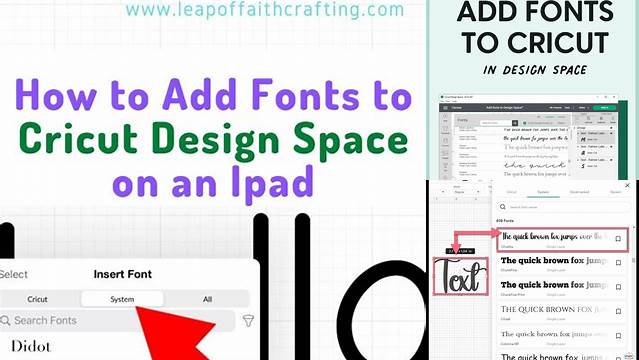
Upload Fonts To Cricut On IPad: Easy Guide
Hey crafters! Ever wondered how to spice up your Cricut projects on your iPad by using your own custom fonts? You're in the right place! This guide will walk you through the process of uploading fonts to Cricut Design Space on your iPad, step by step. We'll cover everything from finding and downloading fonts to installing them and using them in your projects. Let's get started and unleash your creativity!
1. Understanding Font Compatibility with Cricut Design Space on iPad
2. Finding and Downloading Fonts for Cricut on iPad
3. Installing Fonts on Your iPad for Cricut Design Space
4. Accessing Newly Installed Fonts in Cricut Design Space on iPad
Alright, you've installed your new font – time to use it! Open up Cricut Design Space on your iPad and start a new project or open an existing one. Add a text box, and then tap on the font dropdown menu. Your newly installed font should be in the list! If you don't see it right away, try closing and reopening Cricut Design Space. Sometimes it takes a refresh for the app to recognize the new font. If you still don't see it, double-check that the font is properly installed in your iPad's settings. Go to Settings > General > Profiles (if you see a Profiles section) or Settings > General > Fonts, and make sure the font is listed there. If it's not, you may need to reinstall it using your font installation app. Once you find your font in Cricut Design Space, you can use it just like any other font. Adjust the size, style, and color to fit your project's needs. Accessing and using your new fonts is a game-changer for customizing your designs and making them truly your own. Make sure to experiment with different fonts to find the perfect one for each project. The ability to use custom fonts really opens up a world of creative possibilities within Cricut Design Space.
5. Troubleshooting Font Issues in Cricut Design Space on iPad
Sometimes, things don't go as planned, and you might run into issues with your fonts in Cricut Design Space. Don't panic! Here are a few common problems and how to fix them. First, if the font doesn't appear in the font list, try restarting Cricut Design Space and your iPad. This often solves the problem. If the font appears but looks weird or distorted, it could be a compatibility issue. Try downloading a different version of the font or using a different font altogether. Also, make sure you're using the latest version of Cricut Design Space, as updates often include bug fixes and improvements. Another issue you might encounter is font licensing. If you're using a font for commercial purposes without a proper license, you could face legal consequences. Always double-check the font's license before using it in your projects. If all else fails, consult the Cricut Design Space help resources or reach out to their customer support for assistance. Troubleshooting font issues can be frustrating, but with a little patience and persistence, you can usually find a solution. Keeping your software up-to-date and understanding font licensing are proactive steps you can take to avoid these problems in the first place.
6. Managing Multiple Fonts on Your iPad for Cricut
If you're anything like me, you probably have a ton of fonts on your iPad. Managing them effectively is key to keeping things organized and preventing your font list from becoming a chaotic mess. One of the best ways to manage multiple fonts is to use a font management app like iFont or AnyFont. These apps allow you to easily install, uninstall, and organize your fonts. You can create font collections for different projects or themes, making it easier to find the perfect font when you need it. Another tip is to regularly review your font list and remove any fonts you no longer use. This will not only declutter your font list but also free up storage space on your iPad. Consider creating a backup of your fonts on iCloud or another cloud storage service in case something goes wrong. Effective font management can save you time and frustration in the long run. It also helps you maintain a consistent look and feel across your projects. With the right tools and strategies, managing multiple fonts on your iPad can be a breeze.
7. Best Font Combinations for Cricut Projects on iPad
Choosing the right font is essential, but combining fonts effectively can take your Cricut projects to the next level. Here are some tried-and-true font combinations that work well together. Pair a bold sans-serif font like Montserrat with a delicate script font like Brush Script MT for a modern and elegant look. For a more playful and whimsical design, try combining a rounded sans-serif font like Quicksand with a handwritten font like Amatic SC. If you're going for a classic and timeless feel, pair a serif font like Times New Roman with a simple sans-serif font like Arial. Remember, the key to successful font combinations is contrast. Choose fonts that complement each other but also have distinct differences in style and weight. Don't be afraid to experiment and try out different combinations until you find the perfect match for your project. Exploring different font pairings will help you create visually appealing and professional-looking designs. Font combinations are a great way to add depth and personality to your Cricut projects, making them stand out from the crowd.
8. Creating Custom Fonts for Cricut Design Space on iPad
Want to really stand out? Why not create your own custom fonts? While it might sound intimidating, it's actually quite achievable with the right tools. There are several apps available on the iPad that allow you to design and create your own fonts, such as Procreate and FontLab Pad. These apps offer a range of tools and features for drawing letters, adjusting spacing, and fine-tuning your font's overall look and feel. Once you've created your font, you can export it as a .OTF or .TTF file and install it on your iPad just like any other font. Creating your own custom fonts gives you complete control over your designs and allows you to express your unique style. It's a great way to add a personal touch to your Cricut projects and make them truly one-of-a-kind. While it takes time and effort, the end result is well worth it. Designing your own fonts opens up a whole new world of creative possibilities and allows you to push the boundaries of what's possible with Cricut Design Space.
9. Using Font Glyphs and Special Characters in Cricut Design Space on iPad
Font glyphs are special characters and alternate letterforms that are included in many fonts. These glyphs can add a touch of elegance and sophistication to your Cricut projects. To access font glyphs on your iPad, you'll need a font browser app like Character Map or Unicode Map. These apps allow you to view all the glyphs included in a font and copy them to your clipboard. Then, you can paste the glyph into your text in Cricut Design Space. Experimenting with font glyphs can help you create unique and eye-catching designs. Glyphs often include flourishes, swashes, and other decorative elements that can elevate your projects. Using glyphs and special characters is a simple yet effective way to add a touch of personality and flair to your Cricut creations. They can transform a plain design into something truly special and memorable.
10. Optimizing Text for Cutting with Cricut on iPad
When working with text in Cricut Design Space, it's important to optimize it for cutting. This means ensuring that your text is smooth, clean, and easy for your Cricut machine to cut. One of the best ways to optimize text is to use a font that is specifically designed for cutting. These fonts typically have thicker lines and fewer intricate details, making them easier to cut without tearing or fraying. Another tip is to weld any overlapping letters or shapes in your text. This will create a single, continuous shape that is easier to cut and weed. Also, be mindful of the size of your text. Smaller text can be more difficult to cut and may require a sharper blade or slower cutting speed. Optimizing text for cutting will help you achieve clean, precise cuts and ensure that your projects look their best. It's a crucial step in the design process that can significantly impact the final outcome.
11. Exploring Script Fonts for Elegant Cricut Projects
Script fonts are perfect for adding a touch of elegance and sophistication to your Cricut projects. These fonts mimic the look of handwriting and can create a beautiful, flowing effect. When choosing a script font, consider the overall style of your project. A formal script font like Edwardian Script ITC is ideal for wedding invitations or other upscale events. A more casual script font like Brush Script MT is perfect for everyday projects like greeting cards or gift tags. Experiment with different script fonts to find the perfect one for your project. Script fonts can be a bit more challenging to cut than other fonts, so be sure to optimize your text for cutting and use a sharp blade. Using script fonts is a great way to add a personal and artistic touch to your Cricut creations.
12. Using Bold Fonts for Impactful Cricut Designs
Bold fonts are a great choice for creating impactful and eye-catching Cricut designs. These fonts have thicker lines and a stronger presence, making them ideal for headlines, titles, and other elements that you want to stand out. When choosing a bold font, consider the overall tone of your project. A modern bold font like Montserrat Bold is perfect for contemporary designs. A more traditional bold font like Impact is great for creating a sense of authority and importance. Be careful not to overuse bold fonts, as they can quickly become overwhelming. Use them strategically to highlight key elements and create visual interest. Using bold fonts effectively can help you create designs that are both visually appealing and easy to read.
13. Incorporating Serif Fonts for Classic Cricut Projects
Serif fonts are characterized by the small decorative strokes (serifs) at the end of each letter. These fonts are often associated with traditional and formal designs, making them a great choice for classic Cricut projects. When choosing a serif font, consider the overall style of your project. A classic serif font like Times New Roman is perfect for creating a sense of timelessness. A more modern serif font like Playfair Display is great for adding a touch of elegance and sophistication. Serif fonts can be a bit more challenging to cut than sans-serif fonts, so be sure to optimize your text for cutting and use a sharp blade. Incorporating serif fonts into your Cricut projects is a great way to add a touch of class and refinement.
14. Utilizing Sans-Serif Fonts for Modern Cricut Creations
Sans-serif fonts are fonts that do not have the small decorative strokes (serifs) at the end of each letter. These fonts are often associated with modern and minimalist designs, making them a great choice for contemporary Cricut creations. When choosing a sans-serif font, consider the overall style of your project. A clean and simple sans-serif font like Arial is perfect for creating a sense of clarity and simplicity. A more geometric sans-serif font like Futura is great for adding a touch of sophistication and modernity. Sans-serif fonts are generally easier to cut than serif fonts, making them a great choice for beginners. Utilizing sans-serif fonts in your Cricut projects is a great way to create designs that are both stylish and easy to read.
15. Layering Fonts for Depth in Cricut Design Space
Layering fonts is a technique that involves combining multiple fonts in a single design to create depth and visual interest. This can be achieved by using different font styles, sizes, and colors to create a layered effect. For example, you could use a bold font for the main text and a script font for a decorative element. When layering fonts, it's important to choose fonts that complement each other and create a cohesive look. Experiment with different combinations to find what works best for your project. Layering fonts is a great way to add dimension and personality to your Cricut designs.
16. Kerning and Letter Spacing in Cricut Design Space on iPad
Kerning and letter spacing are important aspects of typography that can significantly impact the readability and visual appeal of your text. Kerning refers to the spacing between individual letters, while letter spacing refers to the overall spacing between all letters in a word or phrase. In Cricut Design Space, you can adjust the kerning and letter spacing of your text to create a more balanced and harmonious look. Pay attention to the spacing between letters and make adjustments as needed to ensure that your text is easy to read and visually appealing. Fine-tuning the kerning and letter spacing can make a big difference in the overall quality of your Cricut designs.
17. Welding Fonts for Seamless Cutting on Cricut
Welding fonts is a technique that involves joining overlapping letters or shapes together to create a single, continuous shape. This is particularly useful for script fonts, where the letters are often connected. Welding fonts ensures that your Cricut machine cuts the letters as a single piece, preventing any unwanted gaps or breaks. In Cricut Design Space, you can easily weld fonts by selecting the text and clicking the "Weld" button. Welding fonts is essential for achieving clean, seamless cuts, especially with intricate fonts.
18. Attaching Fonts for Precise Placement in Cricut Projects
Attaching fonts is a technique that involves grouping multiple elements together so that they maintain their relative positions when cut. This is useful for ensuring that your text is precisely aligned and placed within your Cricut project. In Cricut Design Space, you can attach fonts by selecting the text and clicking the "Attach" button. Attaching fonts is essential for creating complex designs with multiple elements that need to be perfectly aligned.
19. Flattening Fonts for Print Then Cut Projects on iPad
Flattening fonts is a technique that involves converting your text into a single image layer. This is useful for print then cut projects, where you want to print your design and then cut it out with your Cricut machine. Flattening fonts ensures that the text is printed correctly and that the Cricut machine cuts along the correct lines. In Cricut Design Space, you can flatten fonts by selecting the text and clicking the "Flatten" button. Flattening fonts is essential for achieving high-quality print then cut results.
20. Using Font Effects in Cricut Design Space on iPad
Cricut Design Space offers a variety of font effects that can be used to enhance the visual appeal of your text. These effects include bold, italic, underline, and more. Experiment with different font effects to find what works best for your project. Using font effects is a great way to add emphasis and visual interest to your Cricut designs.
21. Uploading and Using SVG Fonts in Cricut Design Space
SVG fonts are vector-based fonts that can be scaled to any size without losing quality. These fonts are often more intricate and detailed than traditional fonts, making them a great choice for creating unique and eye-catching Cricut designs. To upload and use SVG fonts in Cricut Design Space, simply import the SVG file into your project and treat it like any other image. Using SVG fonts is a great way to add a touch of sophistication and artistry to your Cricut creations.
22. Creating Monogram Fonts for Personalized Cricut Gifts
Monogram fonts are fonts that consist of stylized initials, often used to personalize gifts and other items. Creating monogram fonts is a great way to add a personal touch to your Cricut projects. You can find many free and paid monogram fonts online, or you can create your own using a font design app. Using monogram fonts is a great way to create unique and memorable gifts for friends and family.
23. Designing Shadow Fonts for 3D Cricut Effects
Shadow fonts are fonts that have a built-in shadow effect, creating a 3D appearance. These fonts are great for adding depth and visual interest to your Cricut designs. You can find many free and paid shadow fonts online, or you can create your own by layering two copies of the same font, slightly offset from each other. Using shadow fonts is a great way to create eye-catching designs that stand out.
24. Using Distressed Fonts for Vintage Cricut Projects
Distressed fonts are fonts that have a worn or weathered appearance, often used to create a vintage or rustic look. These fonts are great for adding character and charm to your Cricut projects. You can find many free and paid distressed fonts online, or you can create your own by adding texture and imperfections to a regular font using a photo editing app. Using distressed fonts is a great way to create unique and authentic-looking vintage designs.
25. Creating Outline Fonts for Versatile Cricut Designs
Outline fonts are fonts that only display the outline of each letter, creating a hollow or empty effect. These fonts are versatile and can be used in a variety of Cricut projects. You can create outline fonts by using a font design app or by using the offset feature in Cricut Design Space. Using outline fonts is a great way to add a modern and minimalist touch to your designs.
26. Utilizing Handwritten Fonts for Personal Cricut Touches
Handwritten fonts are fonts that mimic the look of handwriting, adding a personal and intimate touch to your Cricut projects. These fonts are great for creating heartfelt cards, personalized gifts, and other sentimental items. You can find many free and paid handwritten fonts online, ranging from elegant calligraphy to casual scribbles. Using handwritten fonts is a great way to add a touch of humanity to your designs.
27. Finding Free Font Resources for Cricut Design Space
There are many websites and online resources where you can find free fonts for Cricut Design Space. Some popular options include DaFont, FontSpace, Google Fonts, and Creative Fabrica (which often has freebies). When using free fonts, be sure to check the license to ensure that you are allowed to use them for your intended purpose. Finding free font resources is a great way to expand your font library without breaking the bank.
28. Purchasing Commercial Font Licenses for Cricut Projects
If you plan to use fonts in your Cricut projects for commercial purposes (e.g., selling items you create), you will typically need to purchase a commercial font license. This license grants you the right to use the font in your products without violating copyright laws. Commercial font licenses can be purchased from the font designer or from online font marketplaces. Purchasing commercial font licenses is essential for protecting yourself from legal issues and ensuring that you are using fonts ethically.
29. Backing Up Your Font Collection for Safekeeping
It's always a good idea to back up your font collection to protect against data loss. You can back up your fonts to an external hard drive, a cloud storage service, or another device. Regularly backing up your font collection will ensure that you don't lose your valuable fonts if your iPad is lost, stolen, or damaged. Backing up your font collection is a simple yet important step in protecting your creative assets.
30. Staying Updated on Font Trends for Cricut Crafting
Font trends are constantly evolving, so it's important to stay updated on the latest styles and designs. Following font designers, reading design blogs, and browsing online font marketplaces are great ways to stay informed about font trends. Staying updated on font trends will help you create Cricut projects that are stylish, modern, and visually appealing. Keeping up with font trends is a great way to keep your crafting fresh and exciting.
So there you have it! Uploading fonts to Cricut Design Space on your iPad is easier than you thought, right? Now go forth and create some amazing projects with your newfound font skills! Happy crafting, guys!